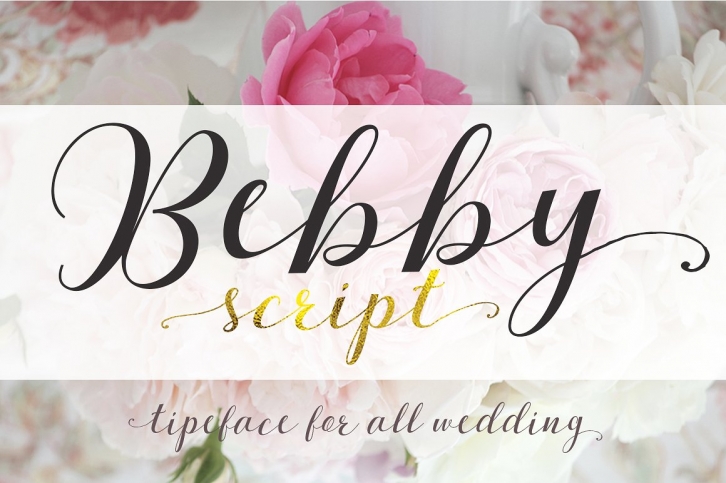
Bebby Script is a beautiful font that was designed by GenesisLab. It's a great choice for designers and creatives who need such a font. It was released on July 13, 2017 and the file size is 3.9 MB. Bebby Script may give a more youthful, expressive and casual look to your project. It is a very beautiful, refined, elegant, and high-quality font.